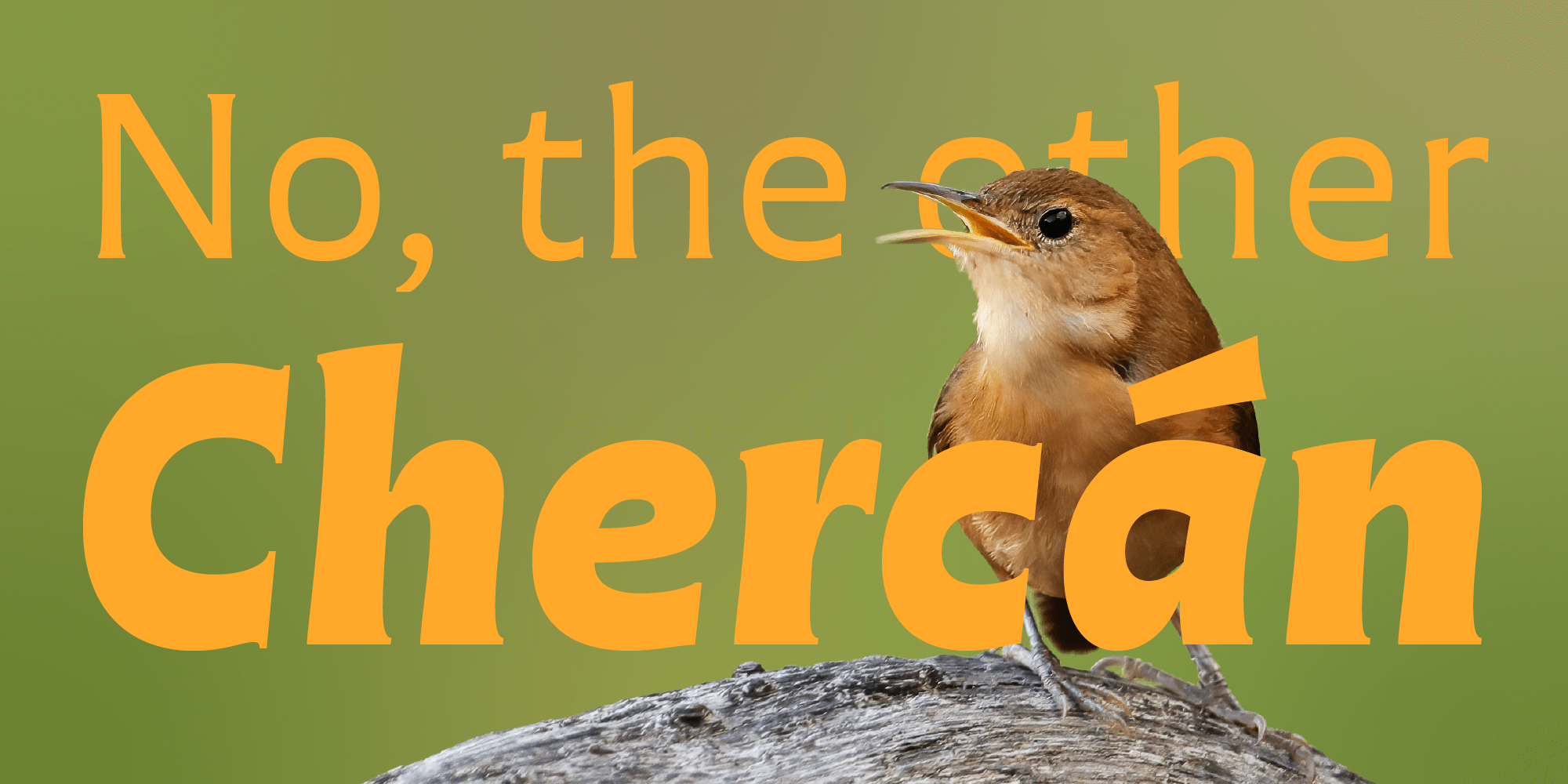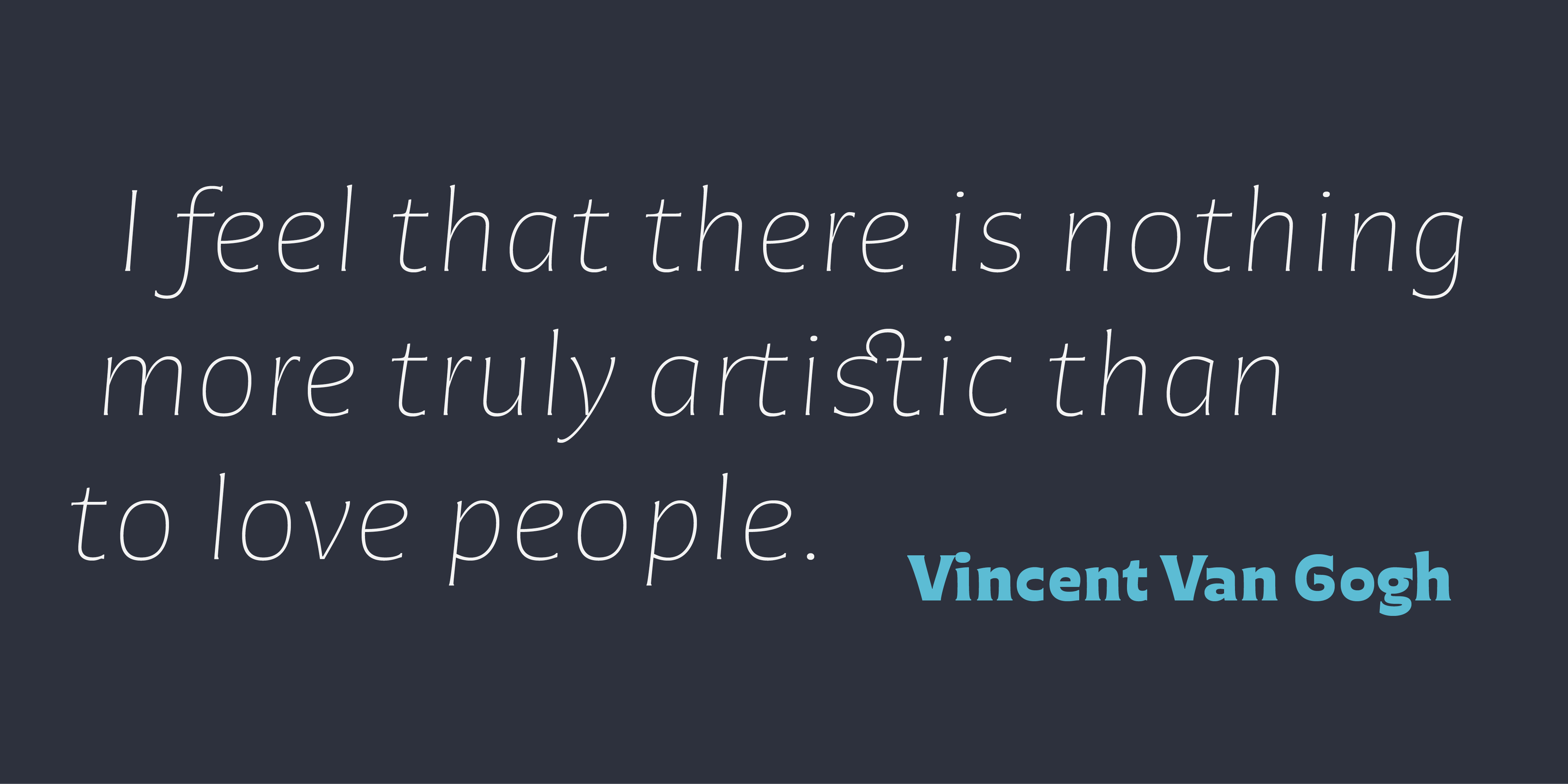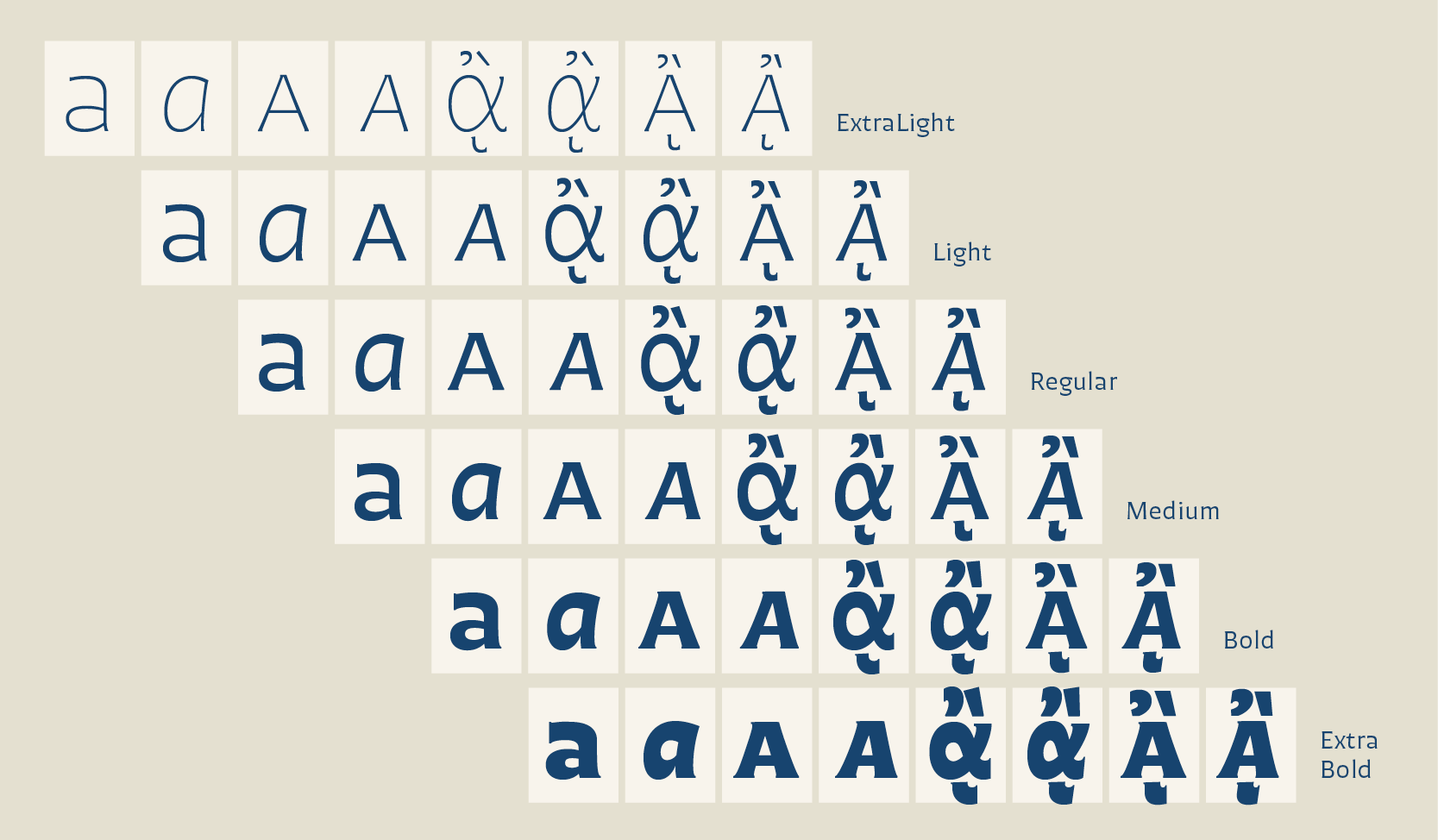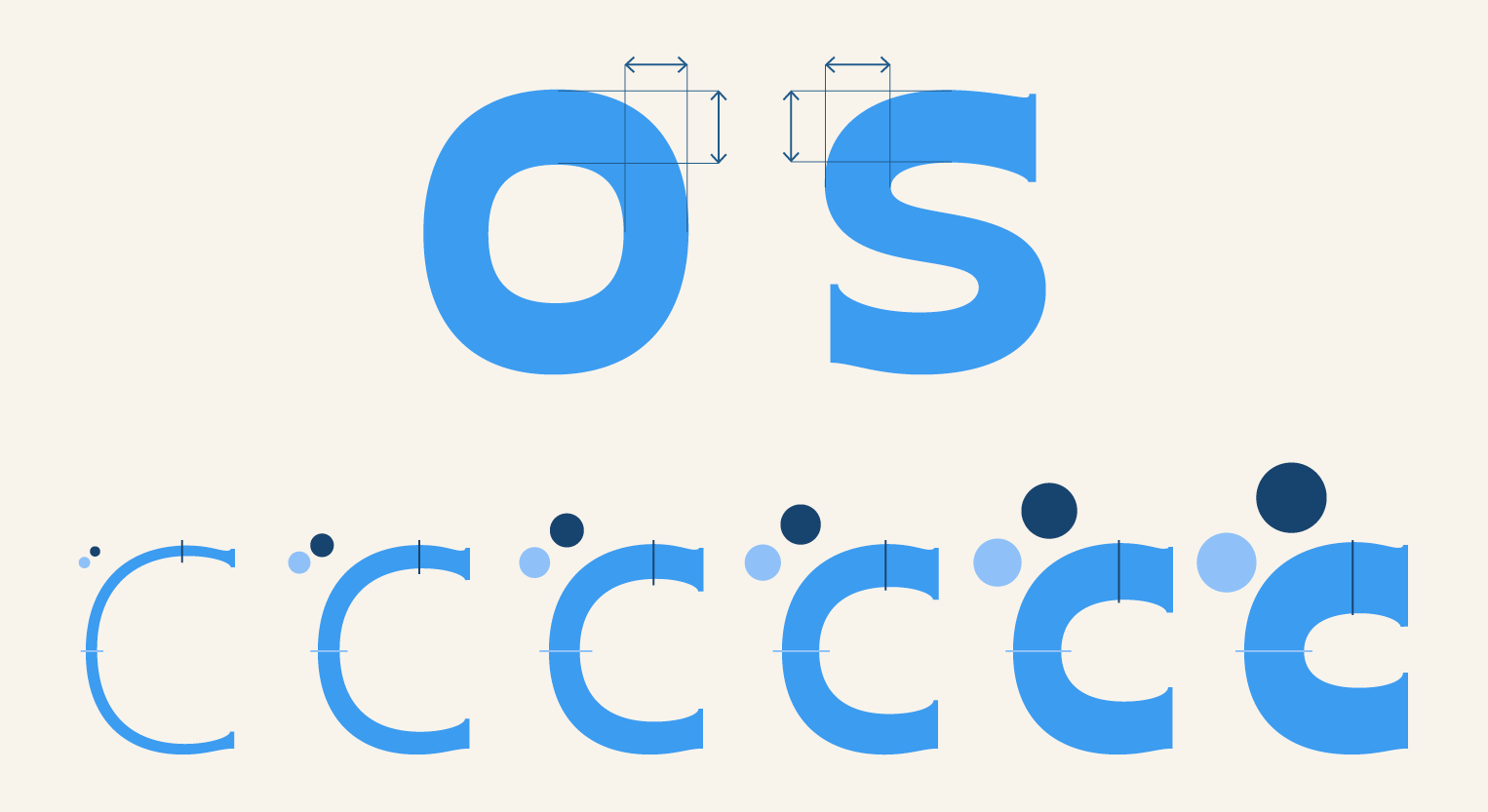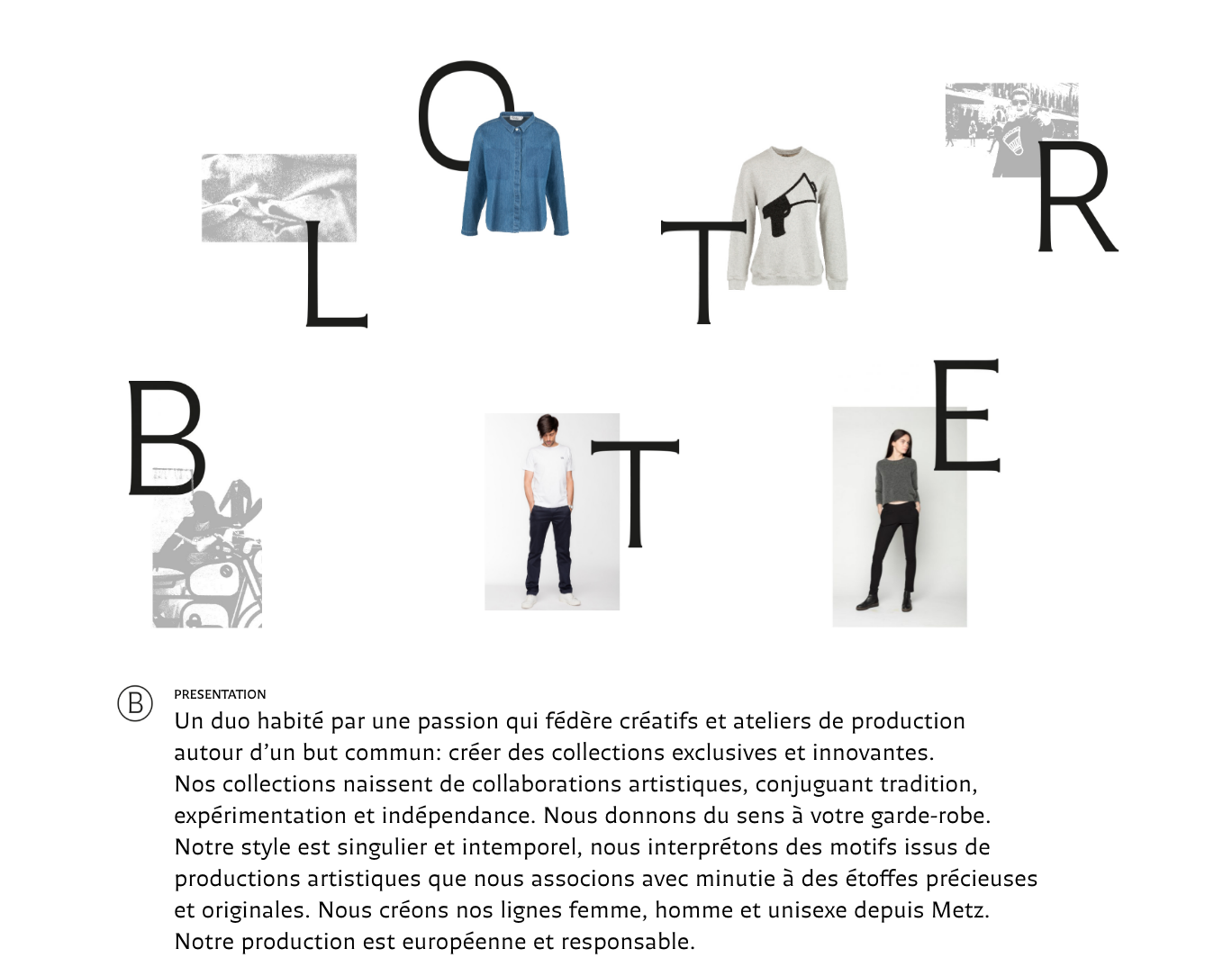
Chercán is the Chilean name for troglodytes aedon, or house wren; it’s a little, round, melodious bird with a classic, distinctive birdsong. Much like the bird for which it’s named, PampaType’s Chercán adds spirit and rhythm to its environment.
When setting out to design Chercán, Gálvez sought to prove that “readability doesn’t need to be dull.” He wanted to create a typeface that was functional at small sizes and beautiful in display—a face that would combine “versatility, legibility, spiciness, and elegance.” No small task.
To make it work, Gálvez found inspiration in two of his favorite classics: Copperplate Gothic by Frederic Goudy and Antique Olive by Roger Excoffon. You can see the influences of these designs in Chercán’s flared stroke endings and reverse contrast, both of which contribute to its readability and personality.
Chercán’s tiny, flared serifs help build an enjoyable reading experience in both text and display sizes. At small scales and in the lighter weights, Chercán’s mini serifs almost melt away, becoming small dark tips, which can ground the letters and lead the reader’s eyes. In display environments, the serifs and open counters imbue text with a uniquely friendly personality, without sacrificing authority.
Gálvez designed Chercán to be usable in a wide variety of typographic environments, so he included six weights across roman, cursive, small caps, and cursive small caps, each featuring flared serifs. Source: Francisco Gálvez Pizarro and PampaType. License: All Rights Reserved.
Most Latin typefaces are thicker along the vertical strokes and thinner along the horizontal strokes; Chercán—like Antique Olive—inverts this practice, adding weight to the horizontals. This contrast reversal is the key to the face’s approachability. Indeed, as Chercán’s weight increases, so does its contrast.
The ratio of thick to thin increases as the weight increases. This decision allows the typographer to maintain supreme readability at text-appropriate weights while adding ever-more personality as one starts setting display text. Source: Francisco Gálvez Pizarro and PampaType. License: All Rights Reserved.
In Chercán, we find a wonderful a that we fall in love with at first sight, a unique g with a surprising twirl, an energetic ampersand, a set of strong figures, and beautiful currency symbols that reveal a great dedication to detail. Chercán also has alternates for E, G, K, P, g and l, which allows designers to distinguish a headline or special word in a composition.
Blotter Atelier, a French clothing brand, uses Chercán for everything, leveraging the typeface’s readability and personality within each page’s composition. Source: www.blotteratelier.com License: All Rights Reserved.
Beyond those glyphs and alternates, Chercán is full of extra goodies: Regular and narrow diacritics covering more than 200 languages, vast ordinal options, proportional and tabular currency symbols, small caps, arrows, and unique bird pointers, featuring the face’s namesake.